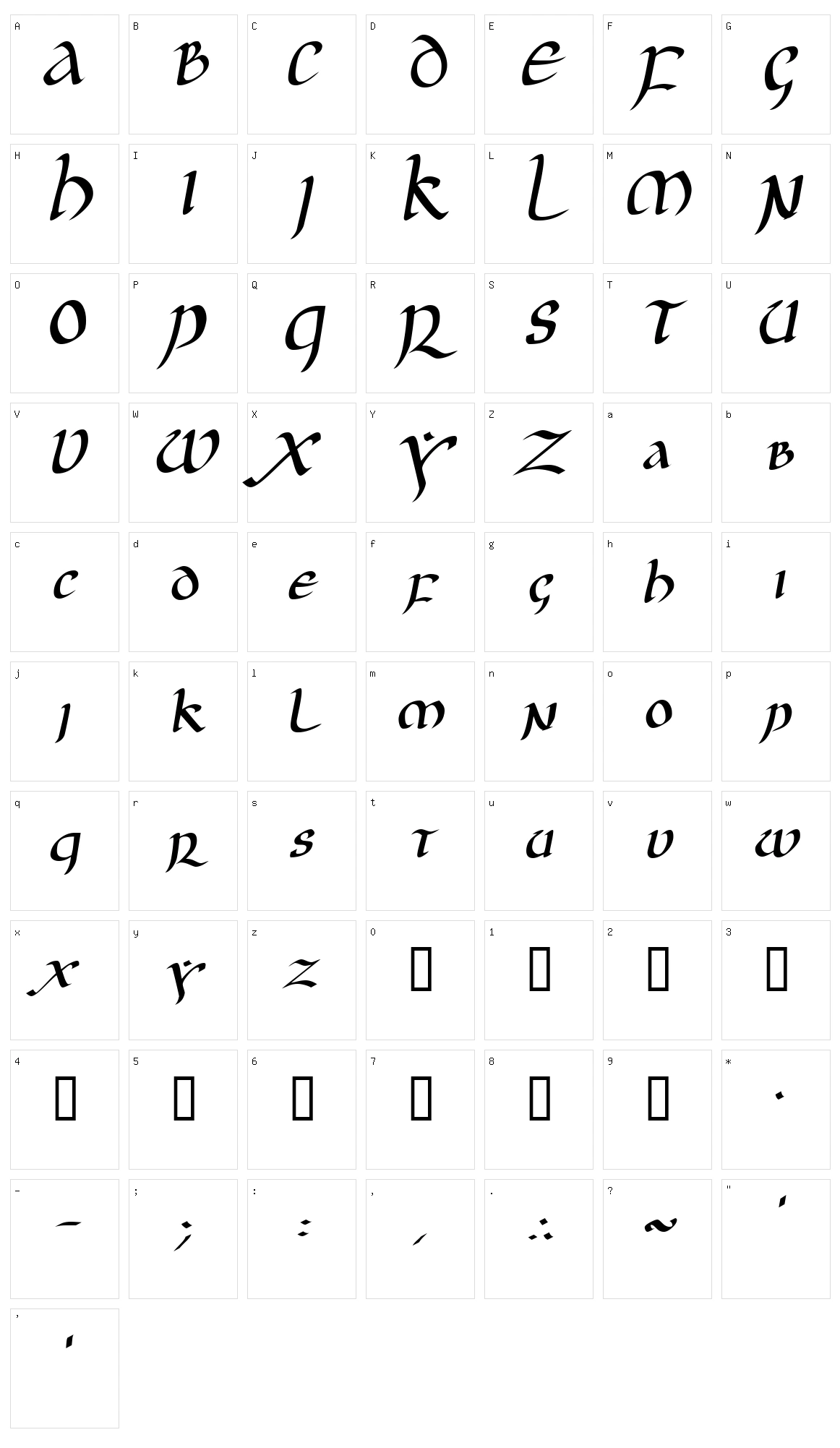
The free font JGJ Uncial is carefully designed by Jeffrey Glen Jackson, showcasing a thoughtful balance of creativity and usability and belongs to the Gothic font family. When you download the ZIP file, it contains only 38.48 KB of font files, making it lightweight and quick to download. Please review the license details below to understand permitted usage and distribution rights. If license information is not available, we recommend using this font for personal projects only or contacting the author directly for commercial usage permissions.